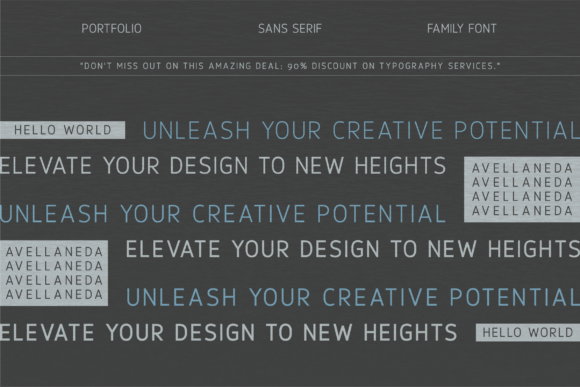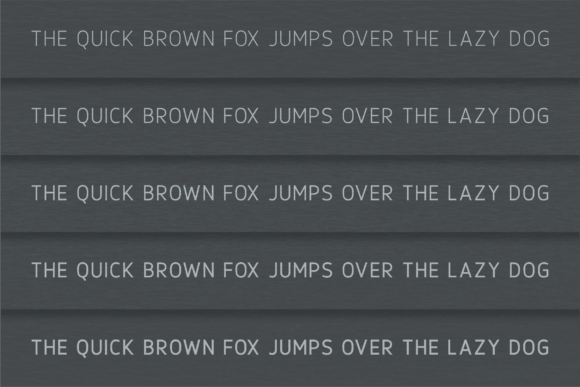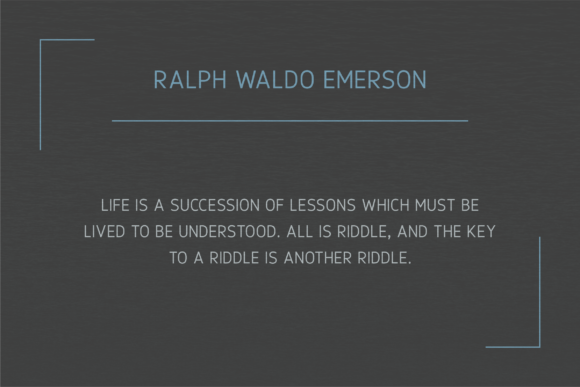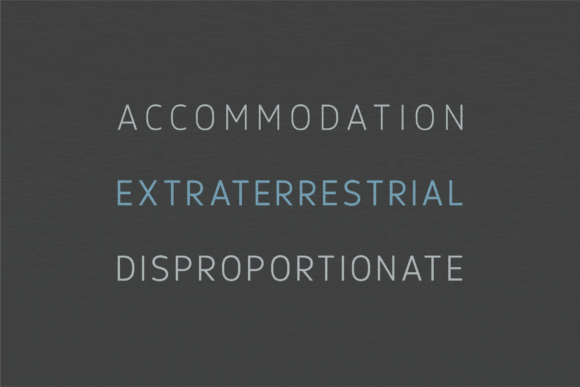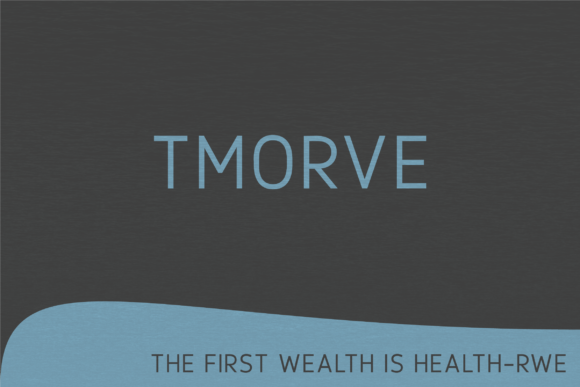
Discover the Elegance of Avellaneda Font: A Perfect Blend of Minimalism and Luxury
In the world of typography, few font families manage to strike a balance between elegance and simplicity. However, the Avellaneda font family achieves this harmony effortlessly, offering a pure expression of understated elegance intertwined with minimalist aesthetics. This comprehensive suite of sans serif fonts is designed to bring a touch of refined beauty to various design projects, making it a versatile choice for designers and crafters alike.
The Essence of Avellaneda Font
Avellaneda is not just a font family; it’s an experience. Comprising five sleek weights, it is engineered to provide the perfect blend of contemporary style and luxurious appeal. Whether you’re working on a magazine, crafting a logo, or designing a film poster, Avellaneda’s precision-engineered fonts are designed to elevate your projects with an unparalleled blend of sophistication and simplicity.
Key Features of Avellaneda Font
- Five Sleek Weights: Avellaneda offers a range of weights, providing flexibility for various design applications. From light and subtle to bold and impactful, there’s a weight to suit every project’s needs.
- Sans Serif Elegance: The clean lines and minimalist aesthetic of Avellaneda’s sans serif design ensure that your projects exude modernity and elegance.
- Contemporary Style Meets Luxurious Appeal: Avellaneda strikes the perfect balance between contemporary style and luxury, making it suitable for high-end branding, editorials, and advertising.
- Precision Engineered: Designed with precision, Avellaneda ensures consistent quality across all its weights, providing a seamless design experience.
Applications of Avellaneda Font
Avellaneda’s versatility makes it an excellent choice for a wide range of design projects. Here are some of the areas where Avellaneda truly shines:
- Magazines and Editorials: Add a touch of elegance to your magazine layouts and editorials with Avellaneda’s sleek and sophisticated font styles.
- Logo Design: Create memorable and impactful logos with Avellaneda’s range of weights, perfect for branding that requires a touch of luxury.
- Film Posters: Elevate your film posters with Avellaneda’s bold and eye-catching font styles, designed to capture the audience’s attention.
- Advertising and Marketing: Use Avellaneda to add a sophisticated flair to your advertising and marketing materials, making your campaigns stand out.
Why Choose Avellaneda Font?
In a market flooded with font options, Avellaneda stands out for several reasons:
- Enduring Allure: Avellaneda’s design ensures that your projects have a timeless appeal, avoiding the fleeting nature of trendy fonts.
- Sophistication and Simplicity: The font family offers a rare blend of sophistication and simplicity, making it perfect for designers looking for elegance without complexity.
- Versatility: With five weights and a range of applications, Avellaneda is a versatile choice that can meet the demands of various design projects.
Avellaneda font family is a remarkable addition to the world of typography, offering a unique blend of minimalist aesthetics and luxurious appeal. Its precision-engineered design, range of weights, and versatile applications make it an ideal choice for designers and crafters looking to infuse their projects with a touch of refined beauty and enduring allure. Whether you’re aiming to add elegance to magazines, charm to logos, or appeal to film posters, Avellaneda is the perfect tool to elevate your designs. Embrace the elegance of Avellaneda today and experience the difference it can make in your creative projects.